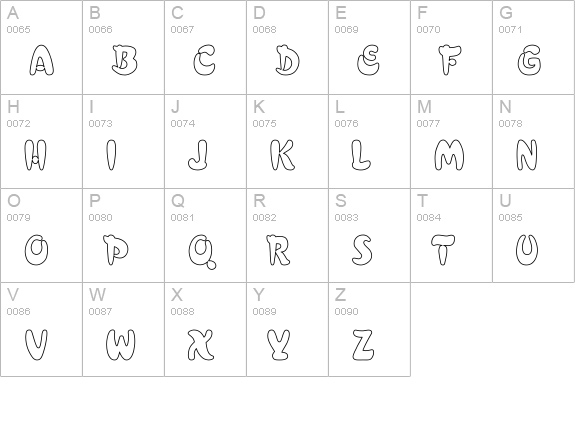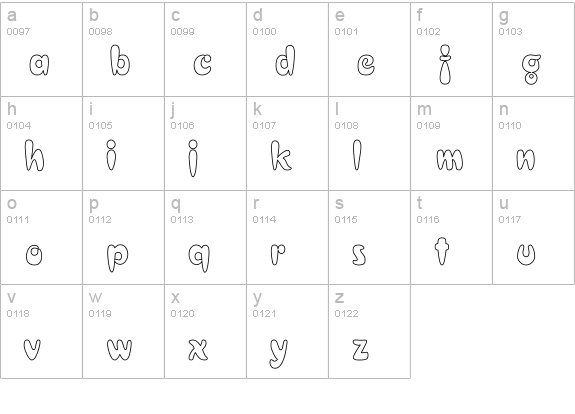
Croissant Ho font is a delightful and elegant typeface that exudes a sense of sophistication and charm. With its soft curves and stylish design, this font is perfect for adding a touch of class to any project. Whether you're working on a branding project, invitations, or any other creative endeavor, Croissant Ho font is sure to make a statement. The best part? Croissant Ho font is available for free download at FontsMarket.com! You can easily access this gorgeous font and enhance your designs with its unique flair. Don't miss out on the opportunity to elevate your projects with the beauty of Croissant Ho font. Download it today and let your creativity shine!